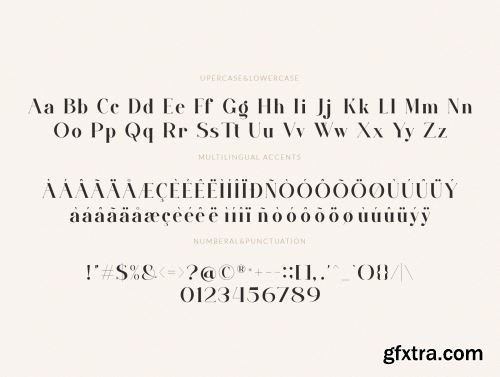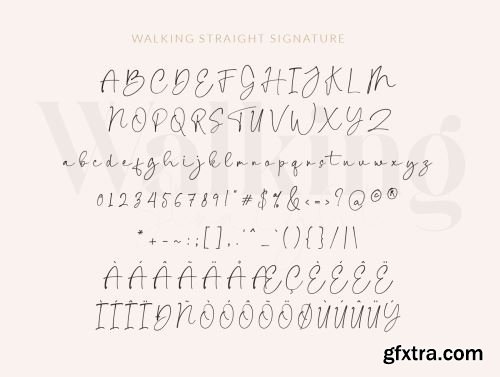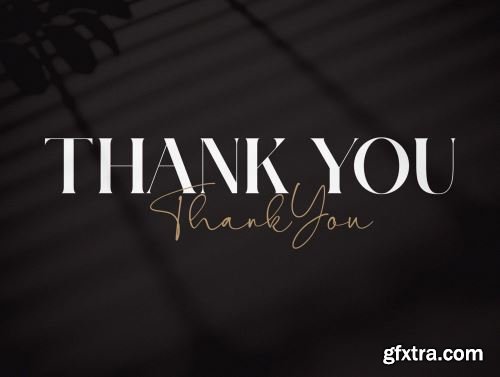
Introducing the new Walking Straight Font Duo!!! Walking Straight is a classy font duo that includes a modern serif and signature script – already matched up and ready to be used together for your next design!
Walking Straight font is perfect for your up coming projects.